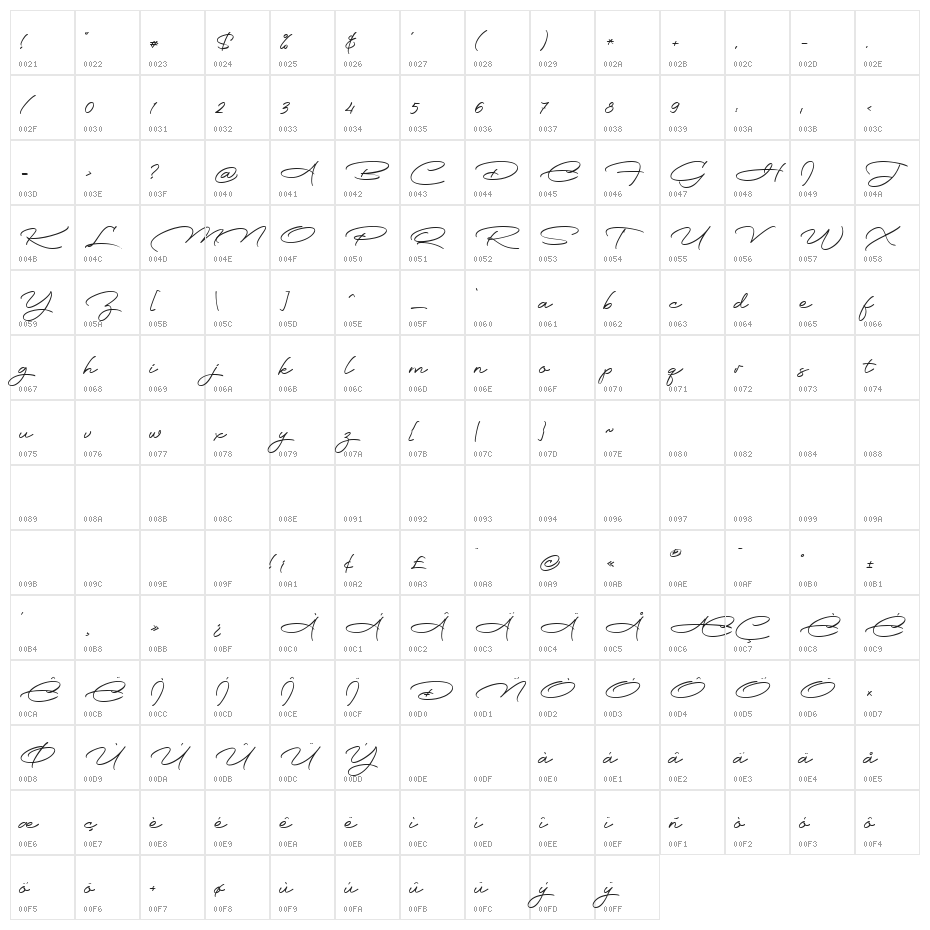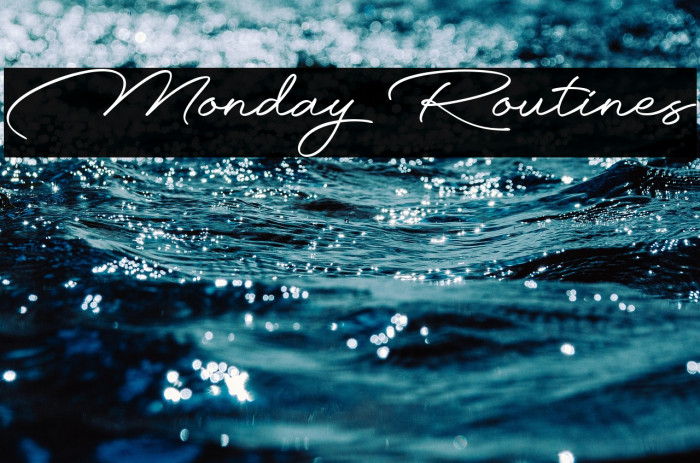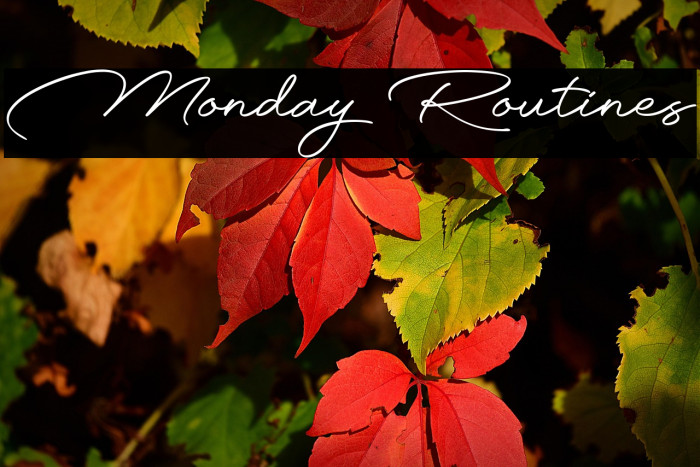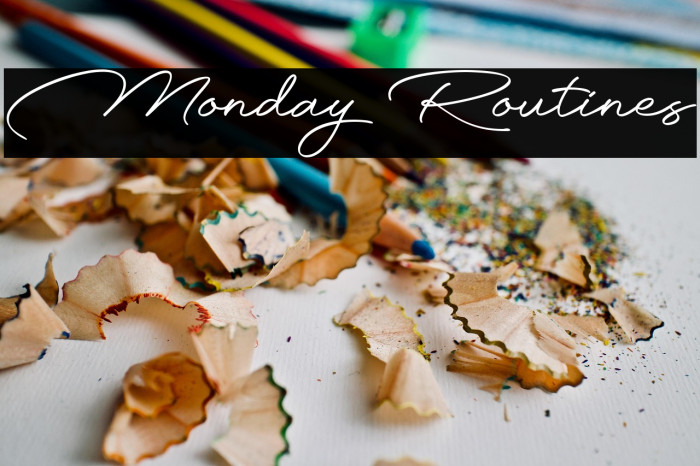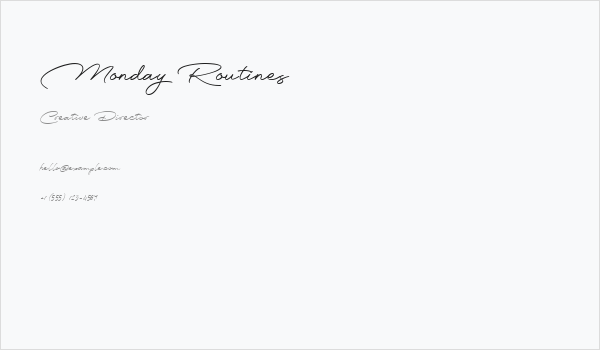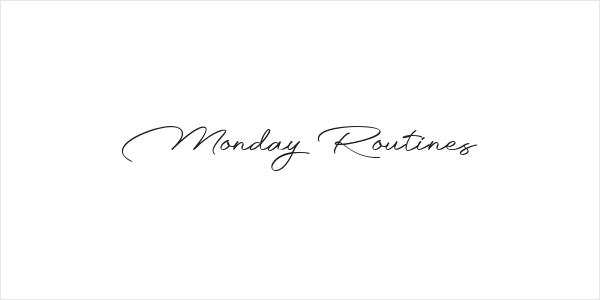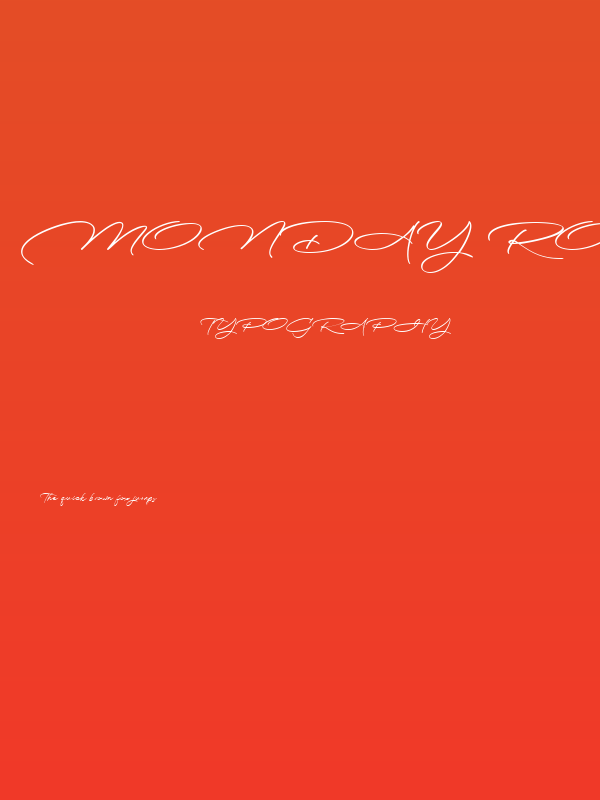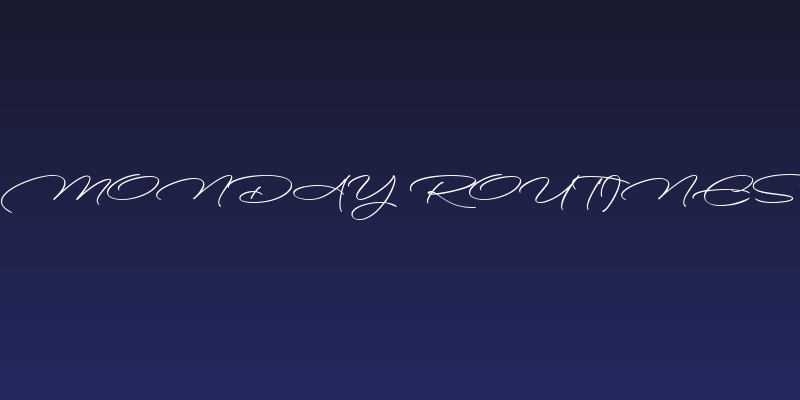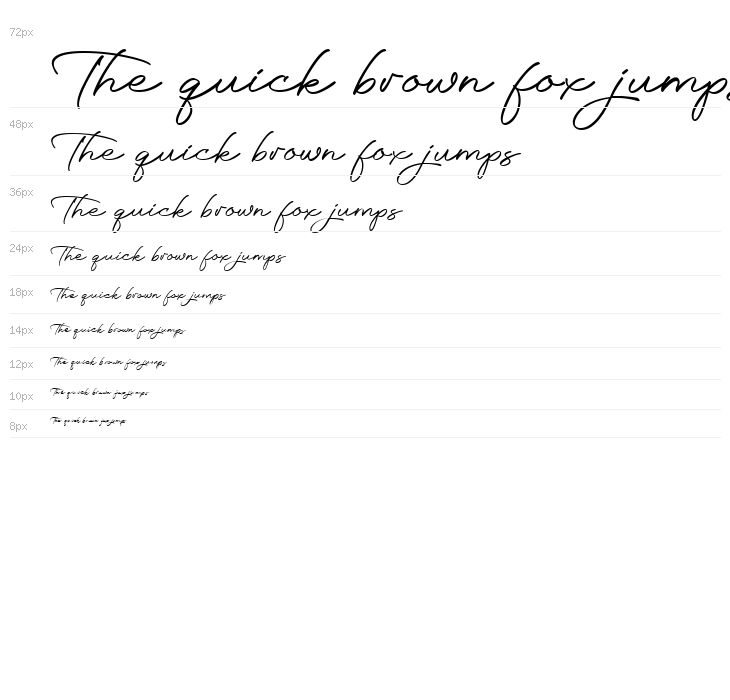
Monday Routines Font
Monday Routines Description
This font exudes elegance and sophistication with its flowing, cursive style. The characters are intricately designed with smooth curves and delicate strokes, giving it a handwritten appearance. The uppercase letters are particularly ornate, featuring elaborate loops and swirls that add a touch of flair. The lowercase letters maintain a consistent style, with a graceful and fluid motion that enhances readability. The numerals are clear and well-defined, complementing the overall aesthetic. Special characters are seamlessly integrated, maintaining the font's cohesive look. This font is perfect for projects that require a personal, artistic touch.
| Overall Style | Elegant, Artistic |
| Proposed Projects | Ideal for wedding invitations, greeting cards, personal branding, and artistic projects. |